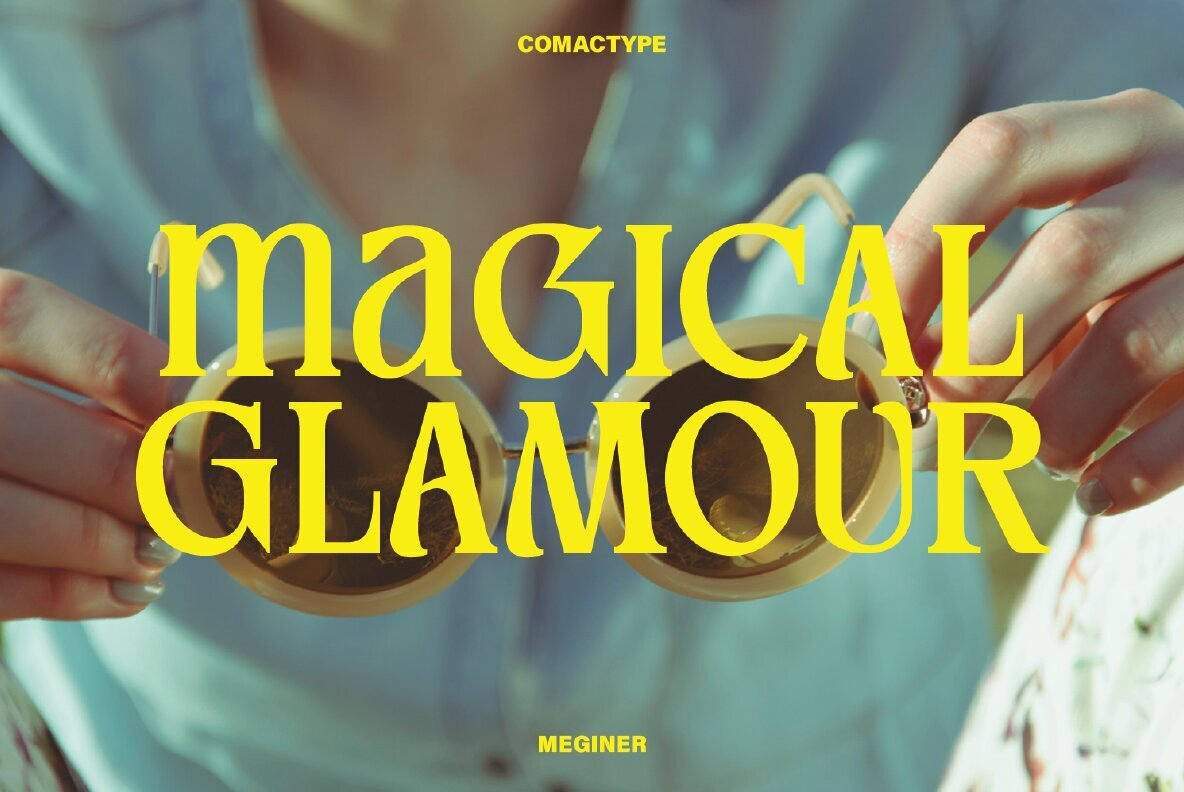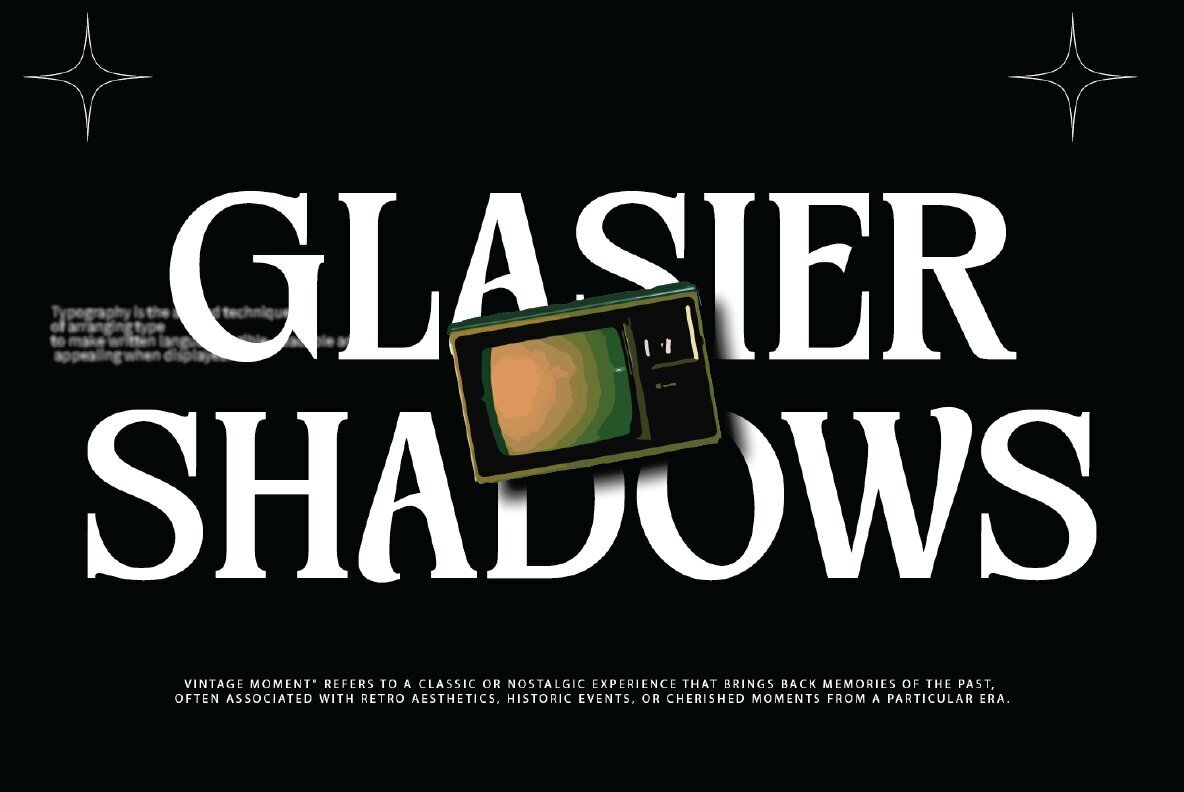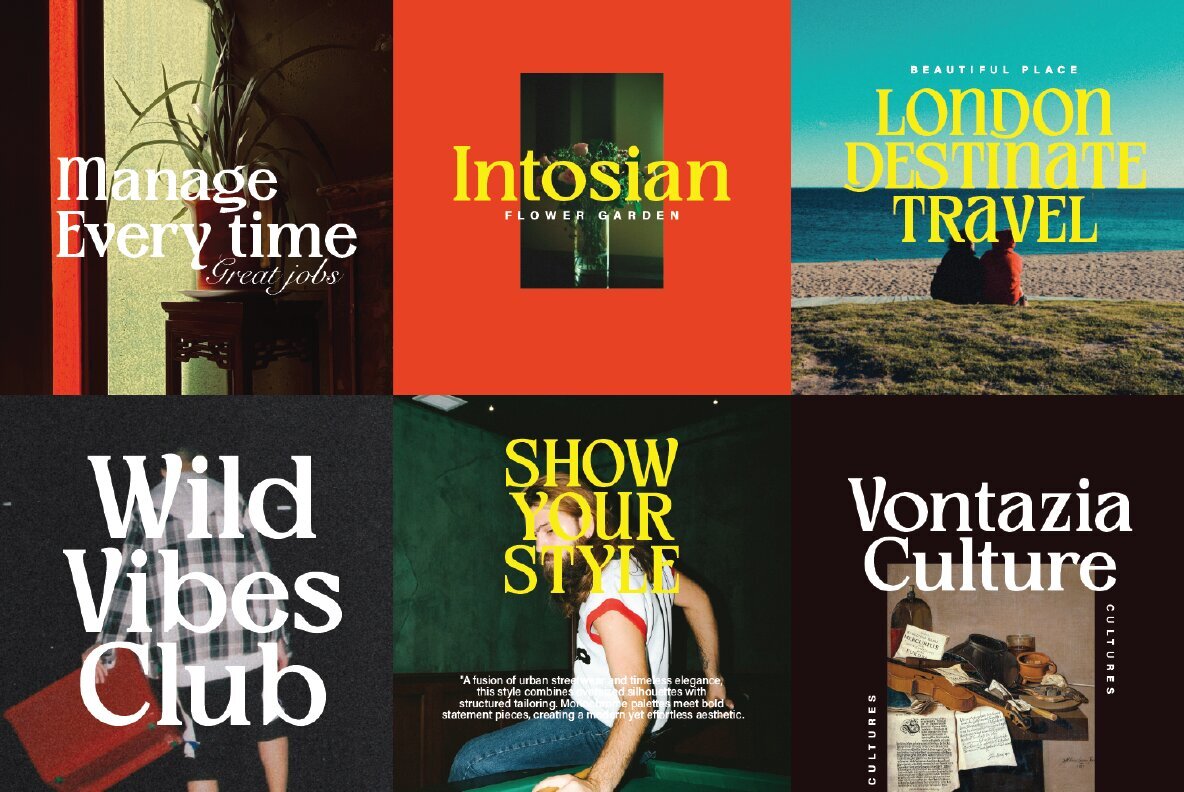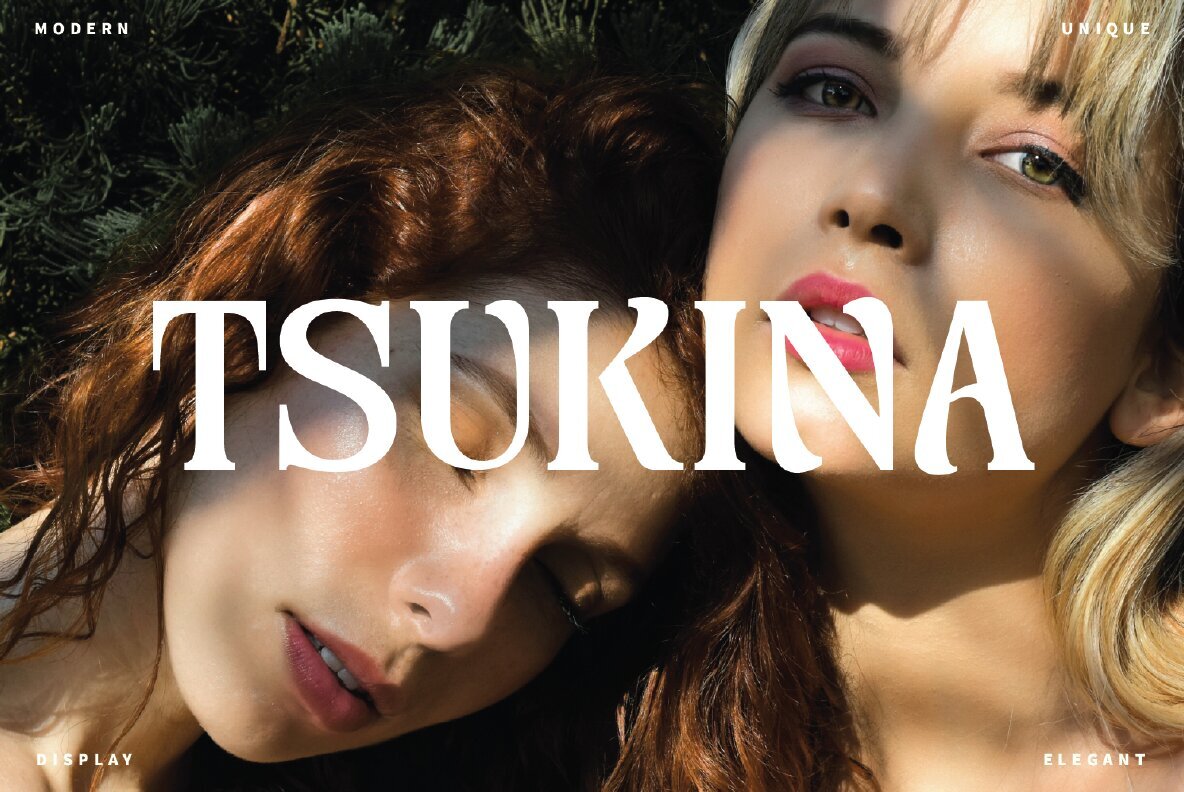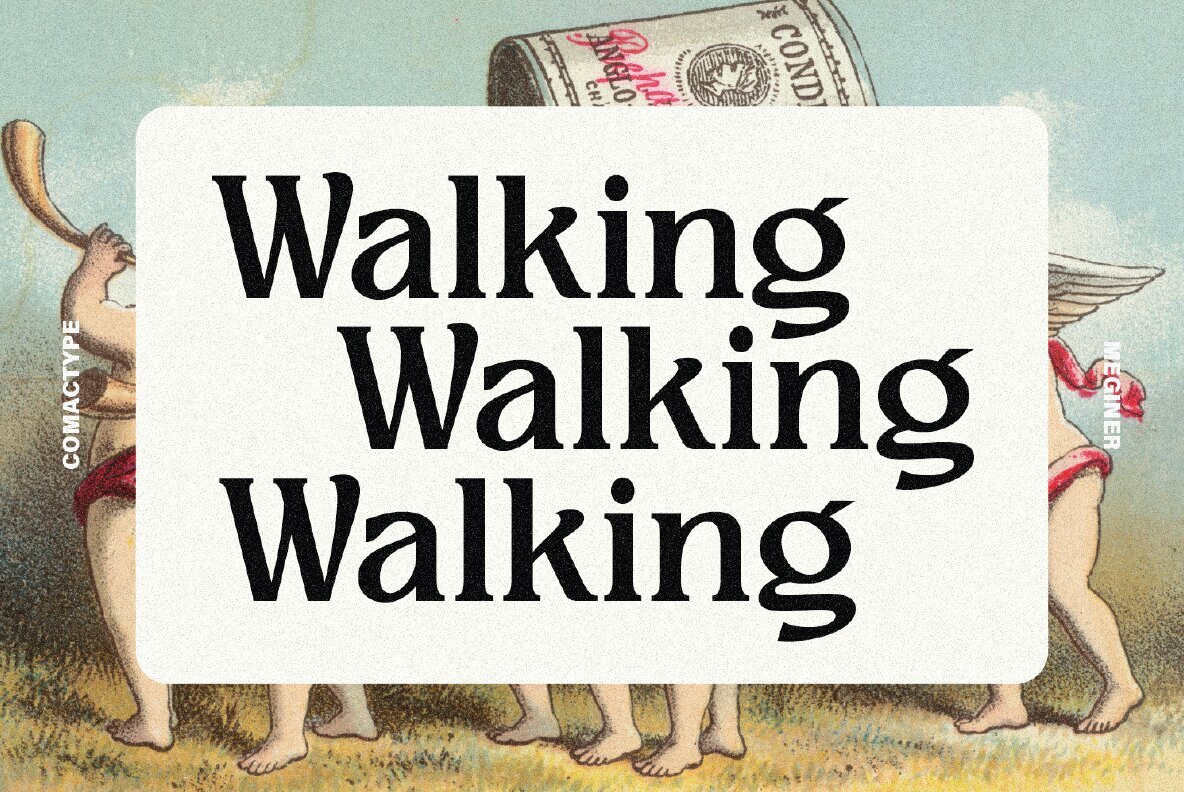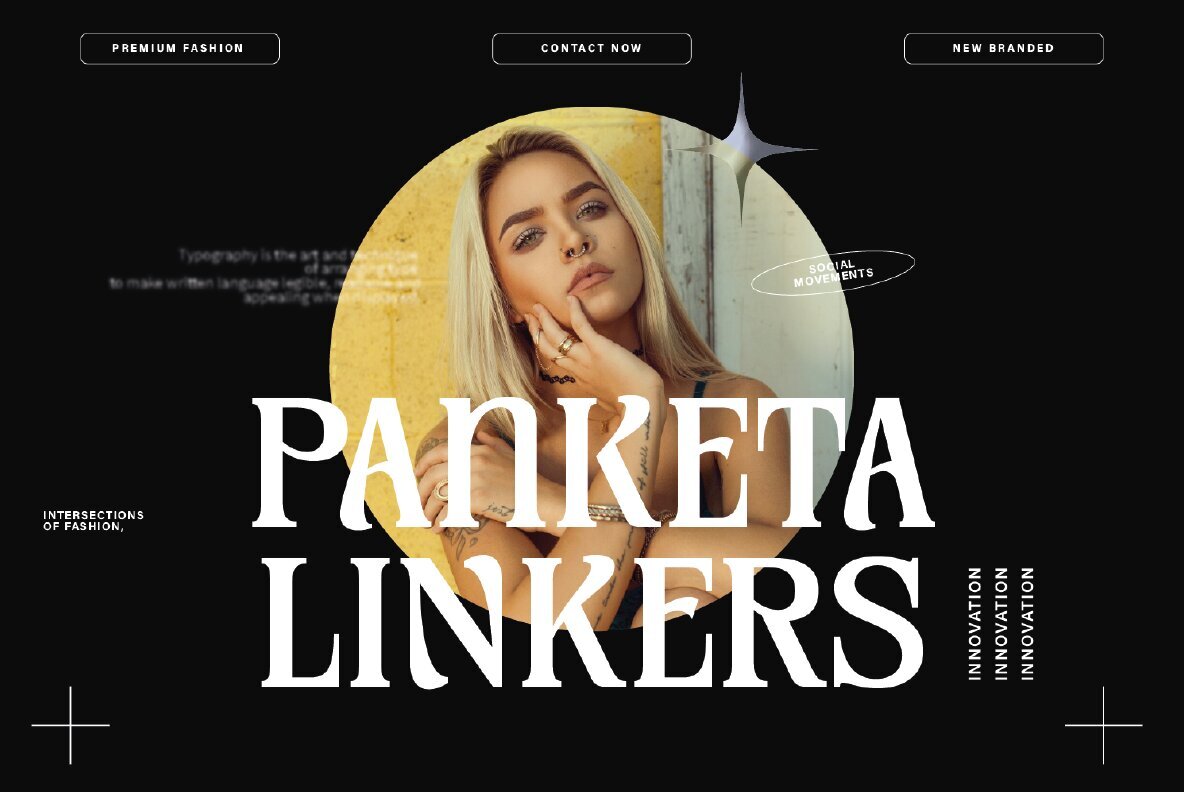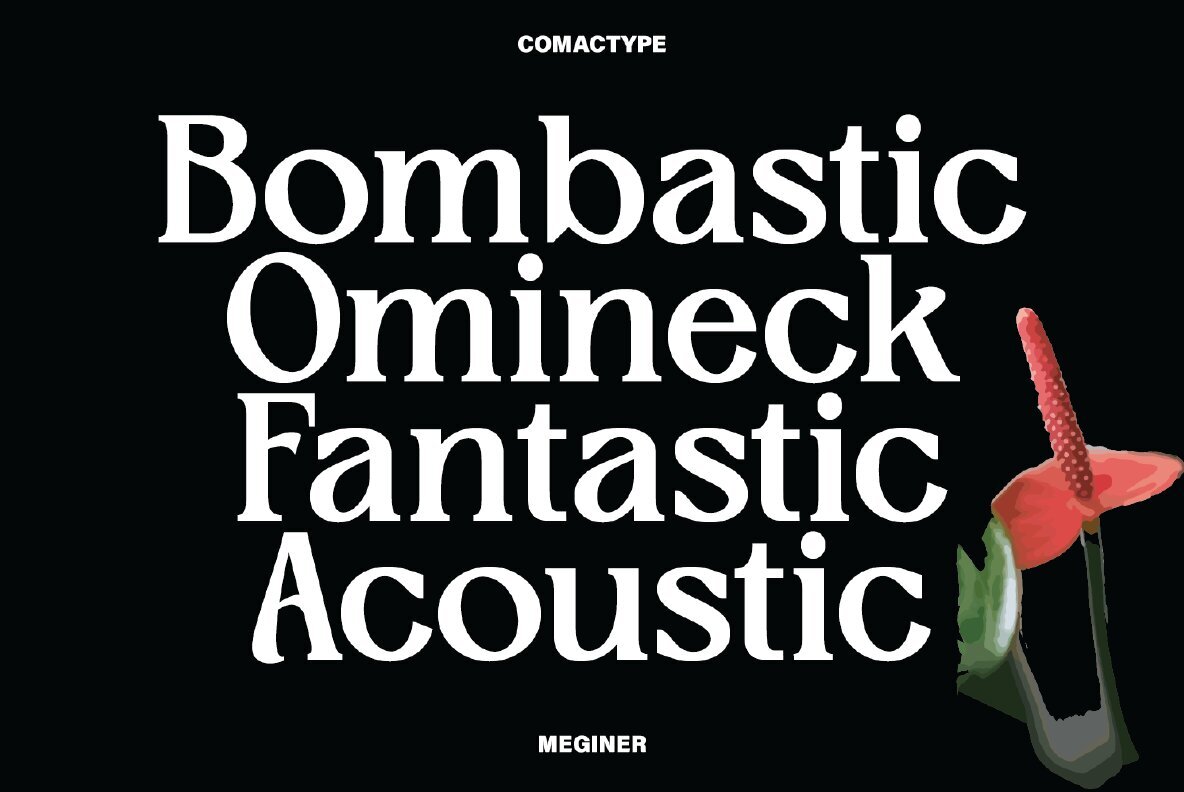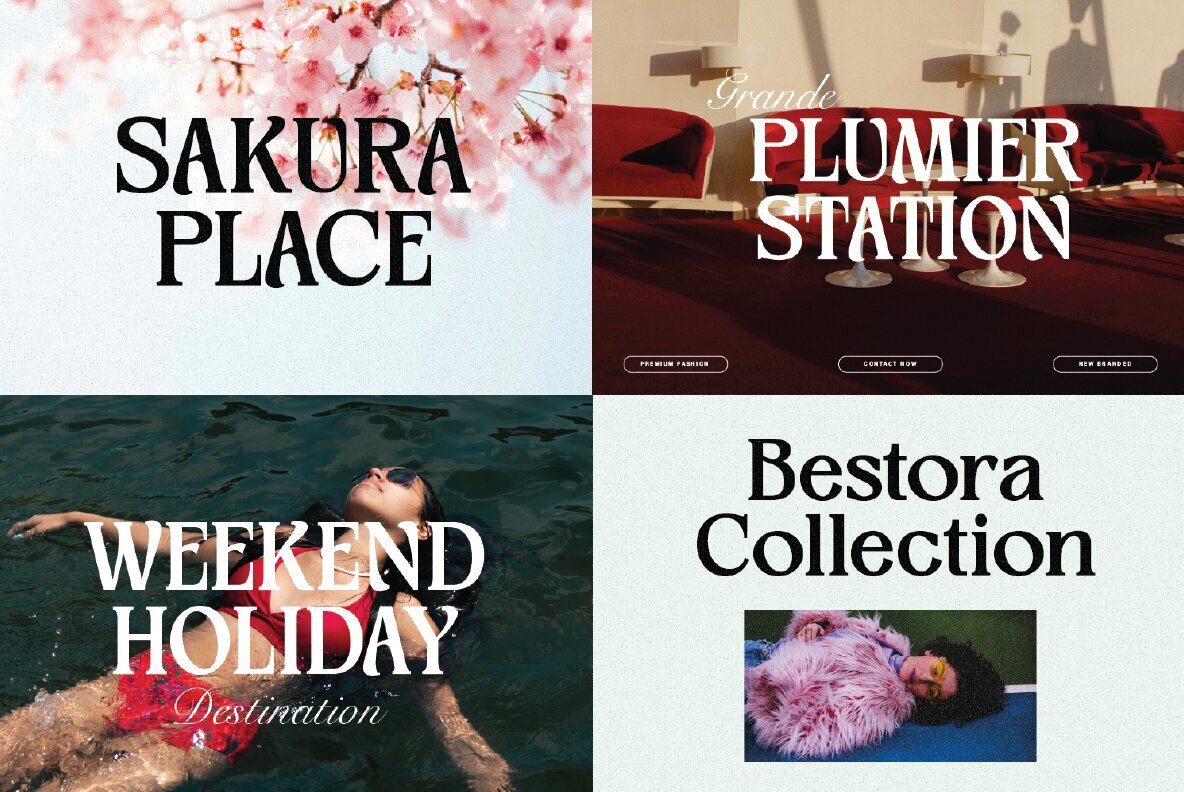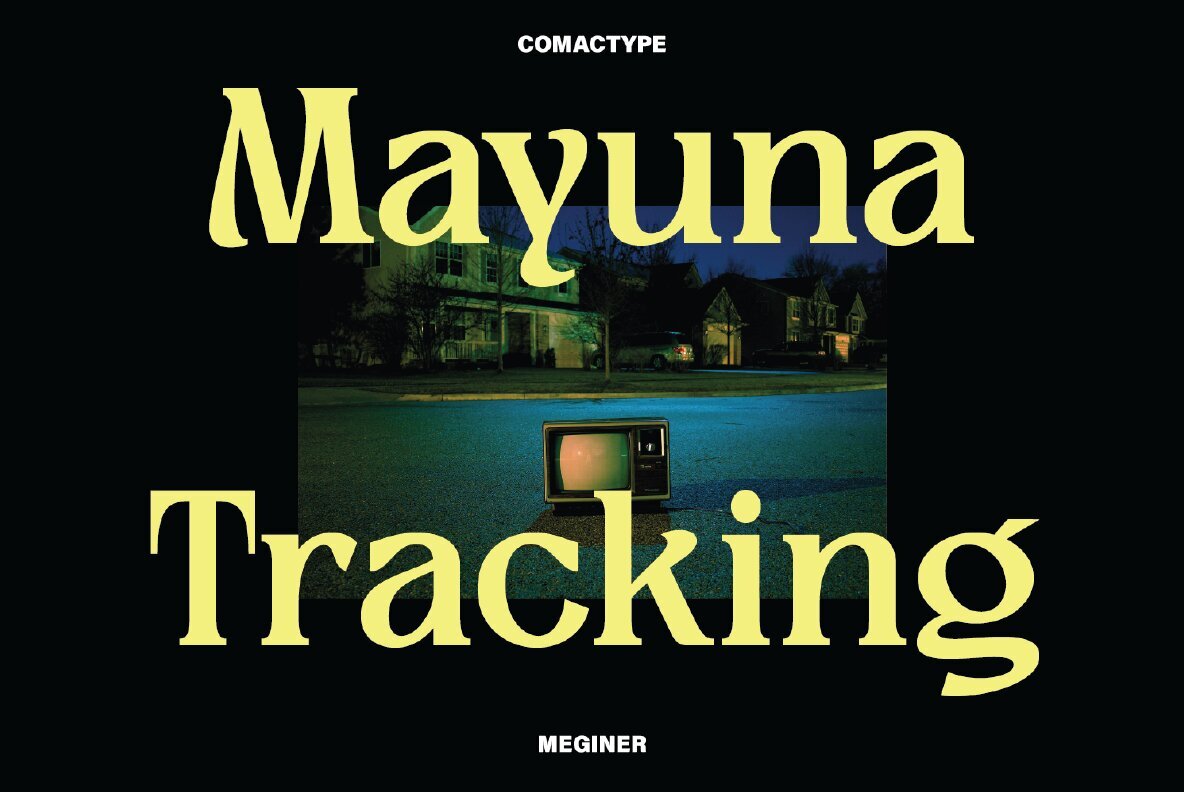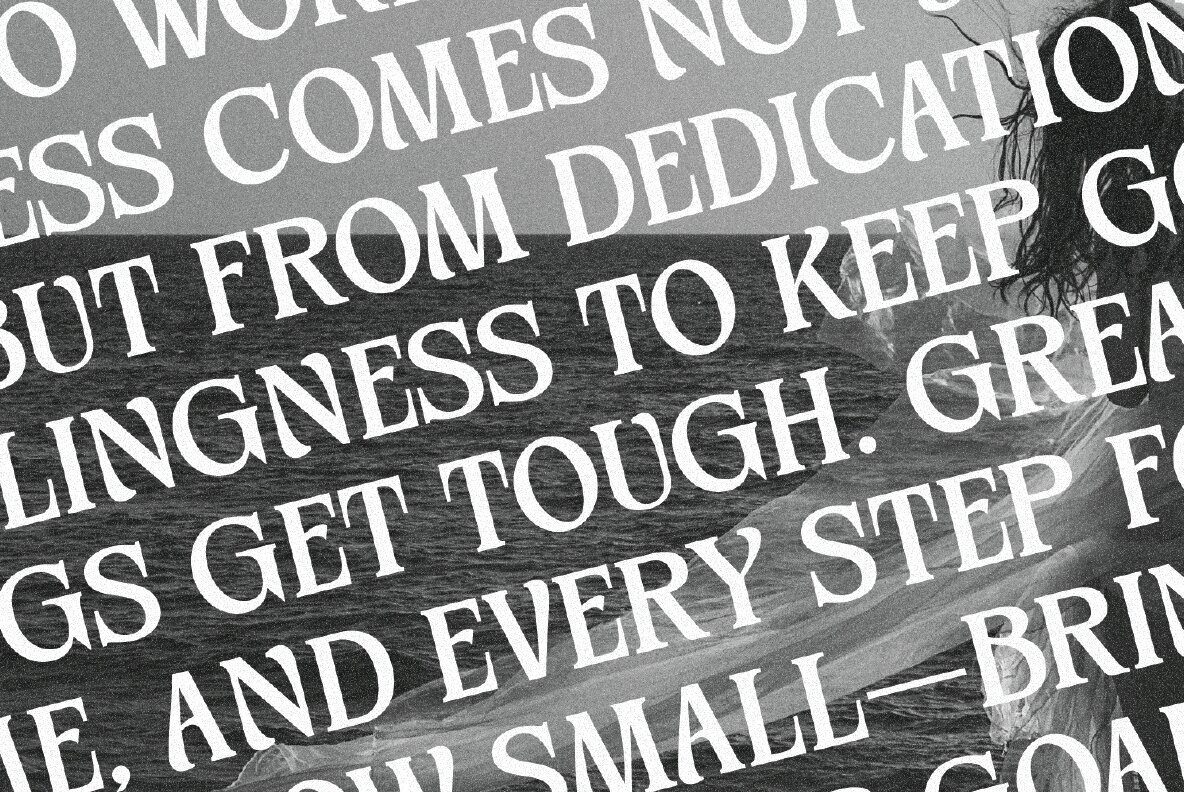
Meginner Nineties Font
MEGINER NINETIES Regular
Meginer Nineties captures the symbiosis of classic elegance and modern flair. This serif font, from the proficient hands of Comac Type, encapsulates the essence of the 1990s with bold letterforms and subtle curves. It's a testament to the era's distinctive aesthetics while being versatile enough for today’s design requirements. Ideal for premium branding and sophisticated editorials, Meginer Nineties shines in eye-catching posters and exclusive packaging. With its dynamic uppercase and lowercase characters, along with unique alternates and ligatures, it lends a charismatic touch to numerous visual projects.Meginer Nineties: A Nostalgic Display Serif